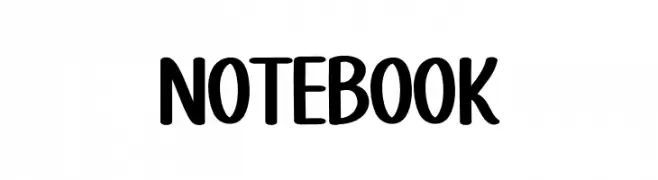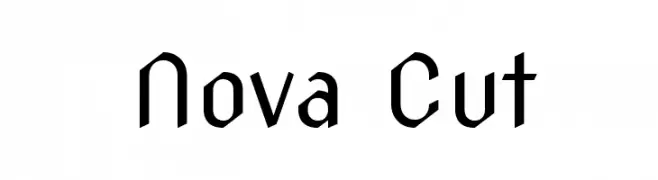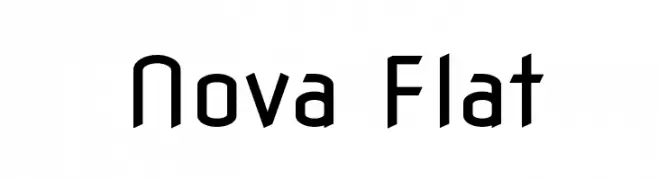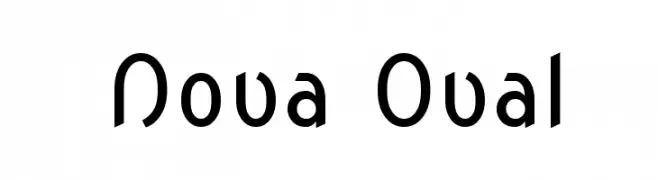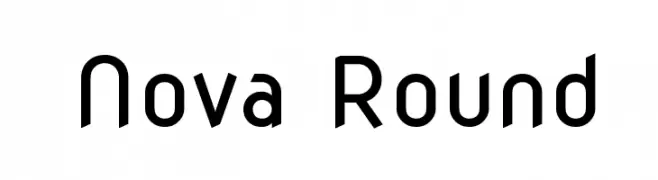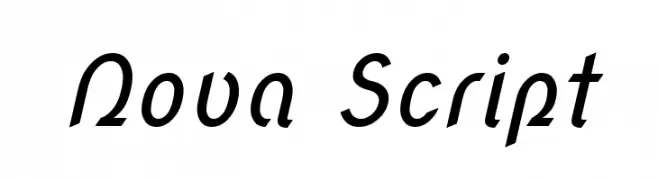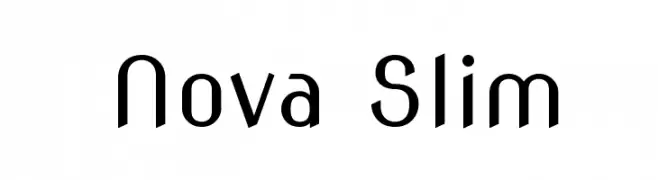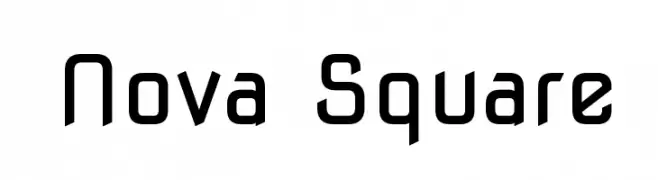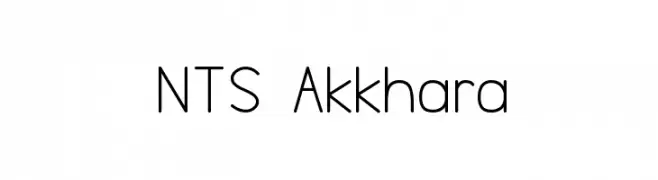
• NOTE BOOK
A playful, rounded font with bold, smooth curves and a friendly appearance.
• Nova Cut
A modern, geometric font with a unique cut-out style and bold, angular shapes.
• Nova Flat
A modern, geometric font with clean lines and rounded edges.
• Nova Oval
A modern, geometric font with rounded edges and uniform width.
• Nova Round
A modern sans-serif font with rounded edges and geometric shapes.
• Nova Script
A dynamic script font with elegant curves and fluid strokes.
• Nova Slim
A sleek, modern font with rounded edges and uniform stroke width.
• Nova Square
A modern, geometric font with a square-like structure and consistent stroke width.
• NTS Akkhara
A modern, geometric sans-serif font with clean lines and balanced spacing.